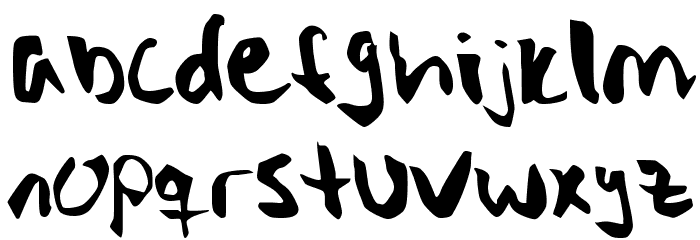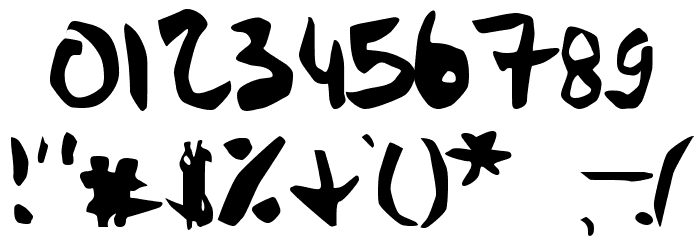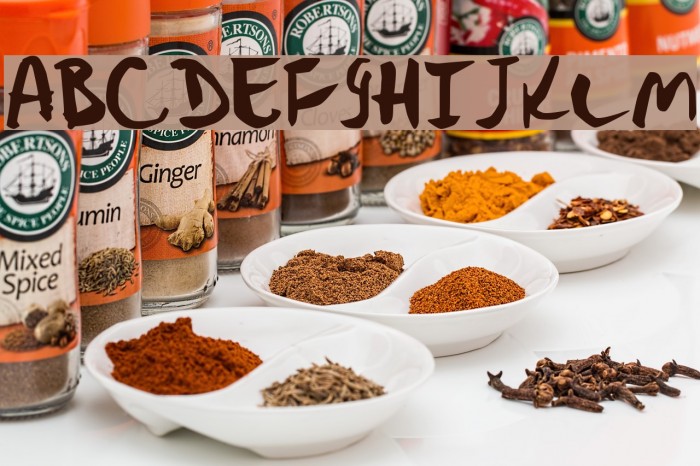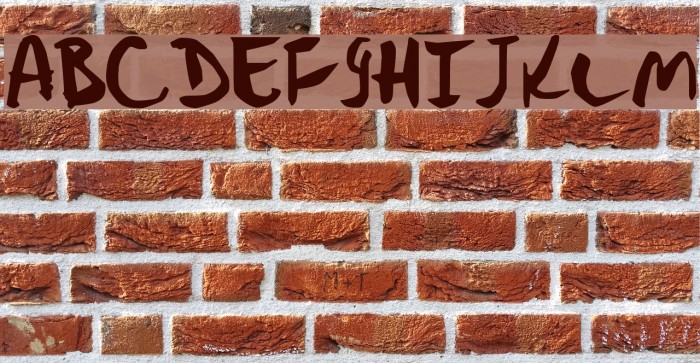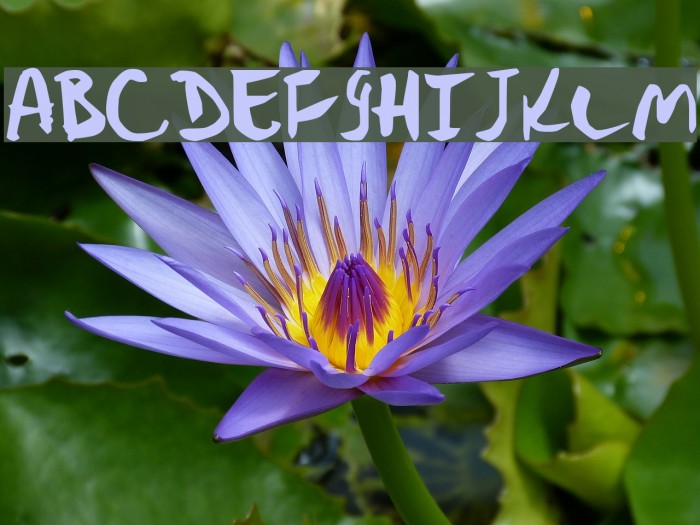
Stryka Font
This font exhibits a bold and expressive handwritten style, characterized by its dynamic and energetic strokes. The letters are irregular and vary in width, giving it a lively and spontaneous appearance. The uppercase and lowercase letters maintain a consistent style, with a playful and artistic flair. The numbers and special characters complement the overall design, adding to its unique and creative look. This font is ideal for projects that require a personal touch or an informal, artistic vibe.
A bold, expressive handwritten font with dynamic strokes.
- Proposed Projects: Ideal for creative projects such as posters, invitations, and artistic branding that require a personal and informal touch.
- Use Case: Headlines, Logos, Artistic projects